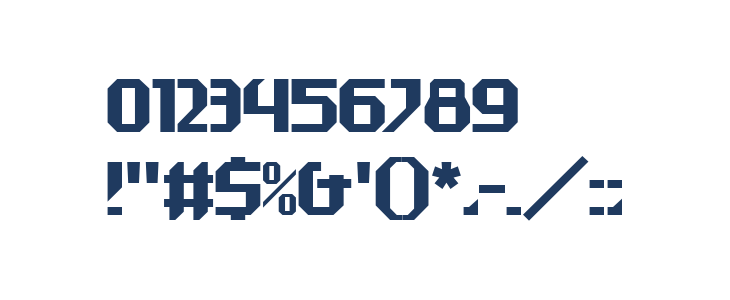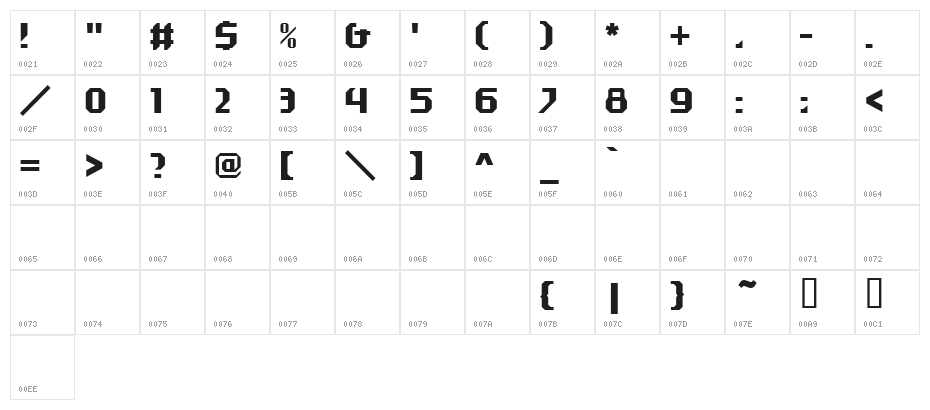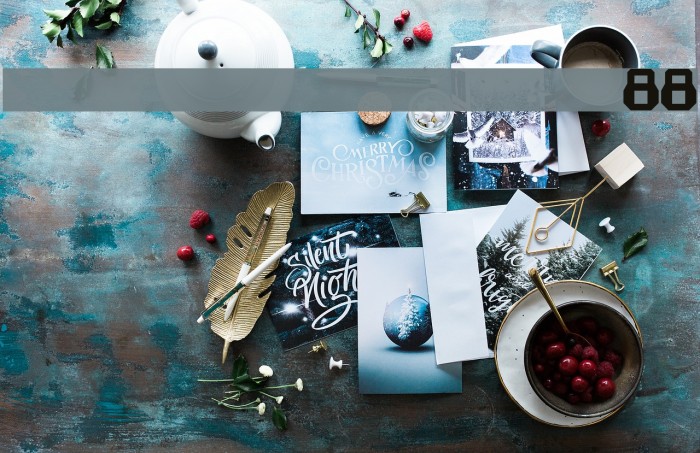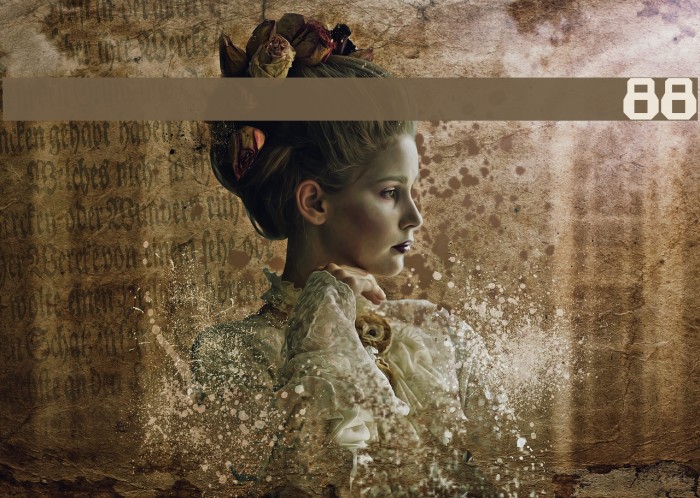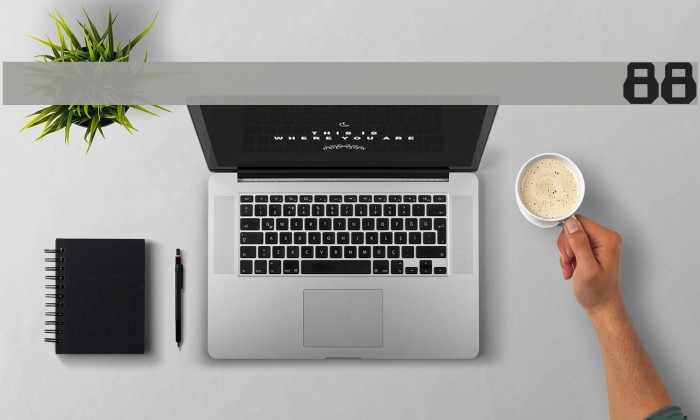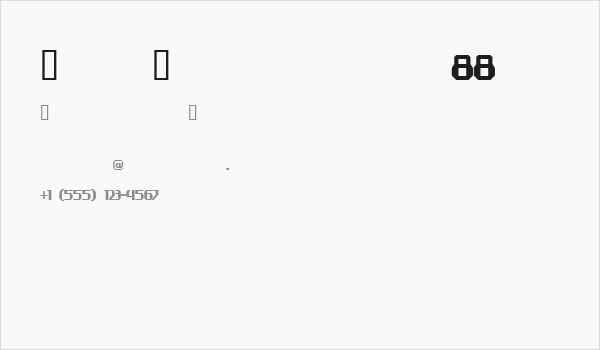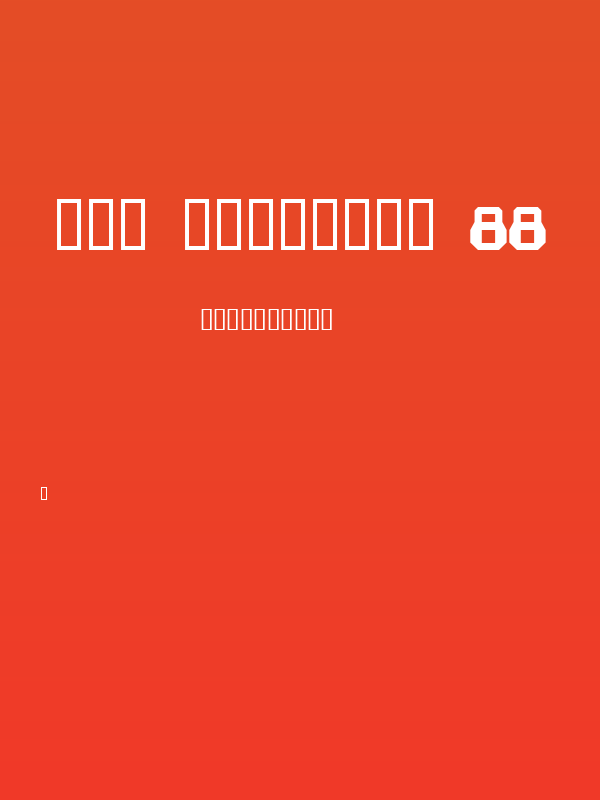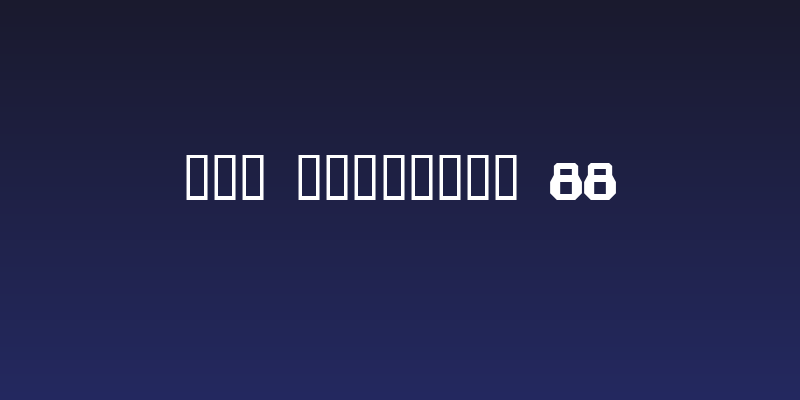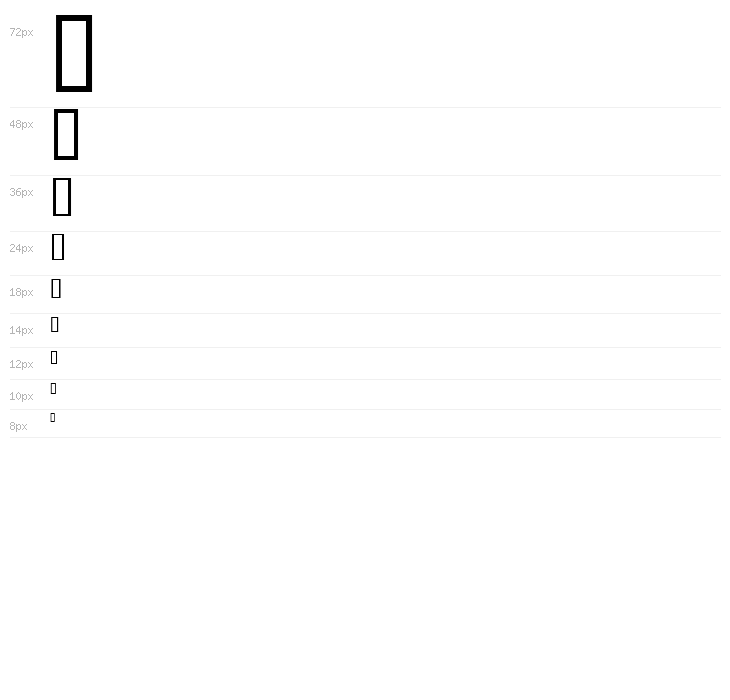
Ail Aodballi 88 Font
Ail Aodballi 88 Description
This font features a bold, geometric design with a strong, angular appearance. The characters are constructed with thick, uniform strokes, giving them a robust and impactful presence. The style is reminiscent of digital or futuristic themes, with a blocky and structured form that suggests a sense of modernity and strength. The numbers and special characters maintain the same boldness and angularity, ensuring consistency across the entire character set. This font is particularly suited for projects that require a striking and memorable visual impact.